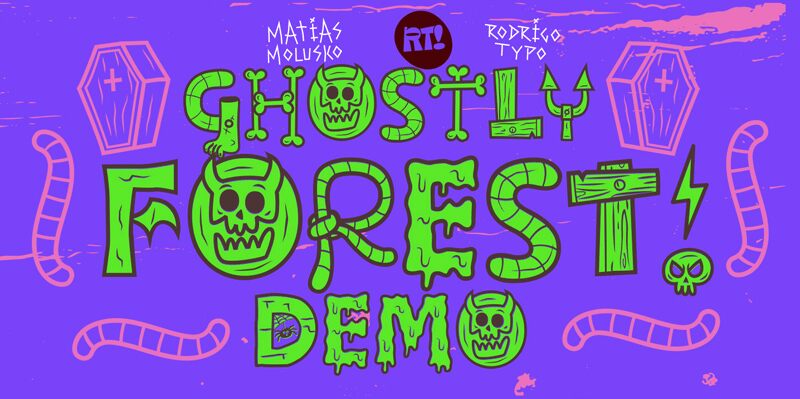
Ghostly forest Demo Ghostly forest Demo
Step into the enchanting world of Ghostly Forest, a holiday font by RodrigoTypo. With its bold and captivating design, this font perfectly captures the spirit of Halloween and brings a touch of whimsy to any project.
Ideal for party invitations, posters, or greeting cards, Ghostly Forest will transport your audience to a mystical realm where witches, ghosts, and pumpkins come alive. Its playful cartoon style adds a delightful twist to any design, making it perfect for children's books or spooky-themed branding.
Let Ghostly Forest add a dash of magic to your next creative endeavor!
Ghostly Forest
Author: Matias Molusko - Rodrigo Araya
Concept: Ghostly Forest, is an entertaining font that has many options such as ligatures, alternatives, layers, it is special for titles related to halloween or informal design, it contains its extended version as a basic one.